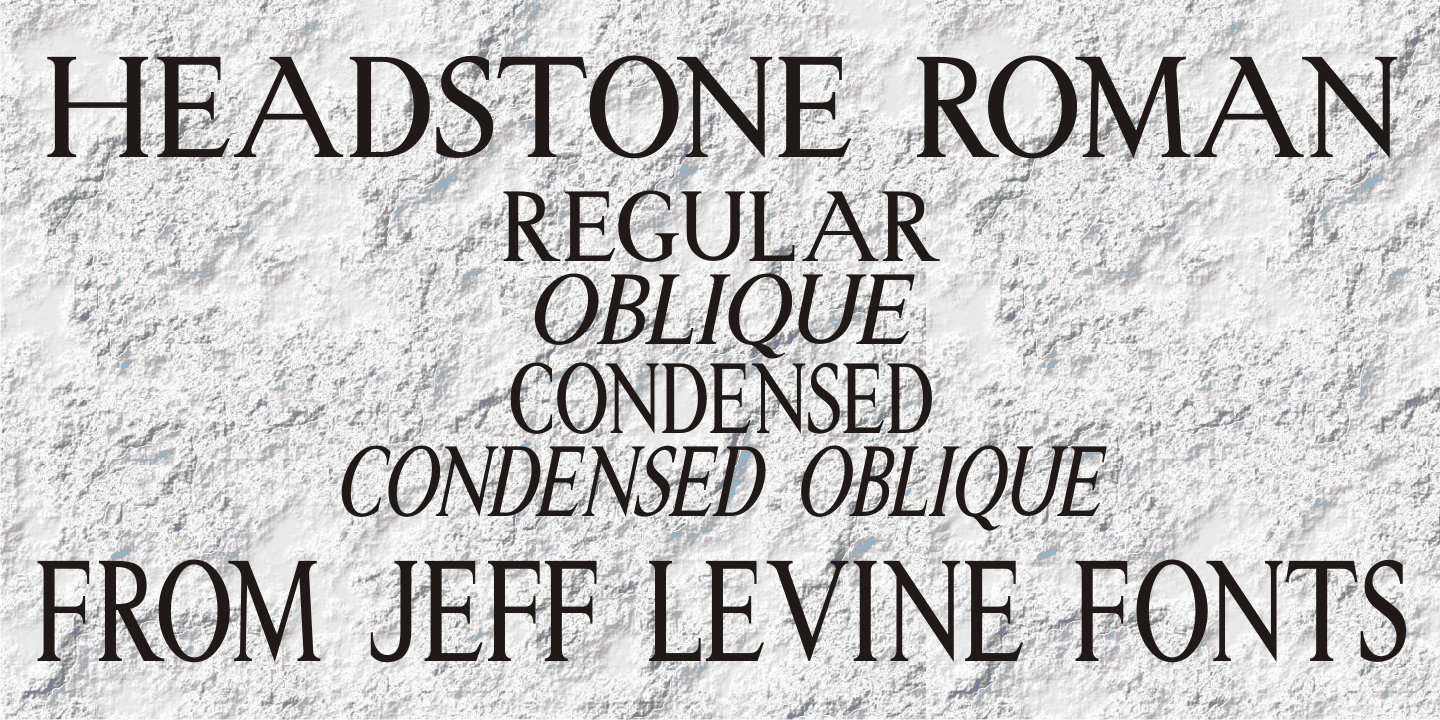
Headstone Roman JNL Font is perfect for memorial service programs, cemetery monument engraving, funeral home branding, memorial garden signage, obituary publications, historical preservation projects, classical architectural inscriptions, and solemn commemorative materials. This dignified typeface excels in memorial applications, classical design projects, and any creative work requiring timeless reverence that captures the essence of eternal remembrance and classical dignity through enduring monumental elegance.
What makes Headstone Roman JNL Font exciting is its profound ability to embody timeless dignity and memorial solemnity through classically carved letterforms that carry the weight of remembrance and the permanence of memorial tradition. The font features monumentally designed characters with Roman-inspired proportions and memorial gravitas that evoke feelings of respectful reverence and classical permanence, making it ideal for brands seeking to establish connections with memorial services and communicate through dignified commemorative visual language. Its monumental presence ensures immediate recognition of classical authenticity and memorial sophistication.
Headstone Roman JNL Font family includes multiple weights and styles: Regular, Bold, Light, Medium variations, and classical alternates with memorial embellishments and Roman decorative elements. Each family member maintains the distinctive memorial character while offering comprehensive design options for commemorative campaigns, from respectful memorial text to dignified classical headlines that establish commemorative authority and memorial credibility through timelessly carved typography.
Whether you're designing memorial service brands or creating classical commemorative campaigns, Headstone Roman JNL Font Free Download provides the perfect typography solution for memorial branding needs. This font transforms ordinary text into dignified memorial statements that communicate classical reverence and timeless remembrance. Memorial service providers and classical preservation organizations choose this typeface for its ability to convey memorial dignity through classically carved letterforms that endure through designs with monumental grace and celebrate the eternal beauty of commemorative tradition.